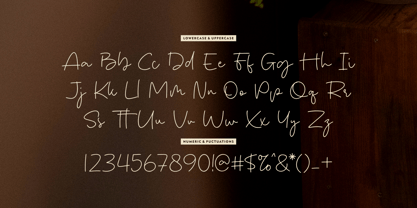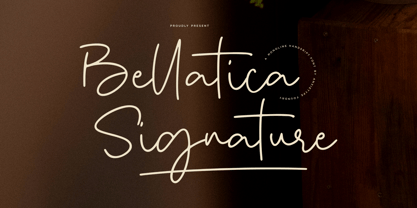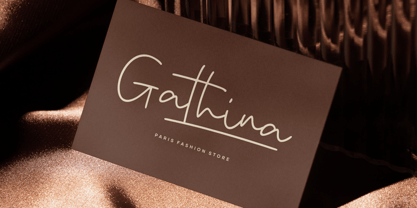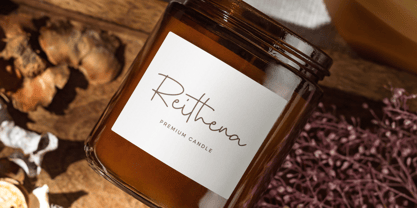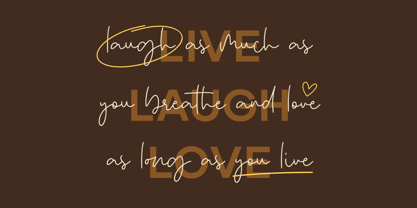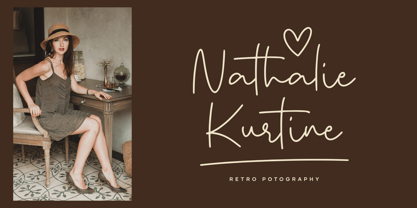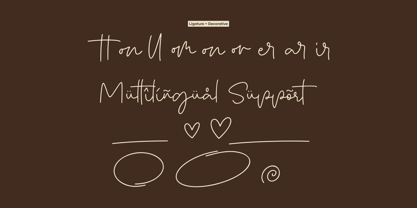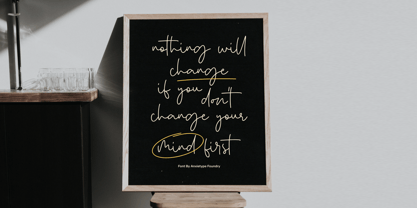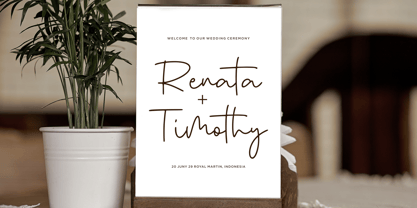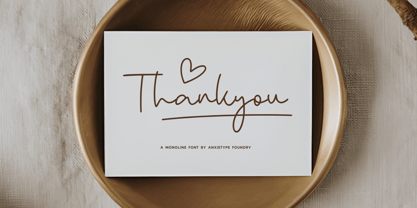
Bellatica Signature
by Anxietype Foundry
The Bellatica Signature Font Family was designed by Annas Rifky Anhar and published by Anxietype Foundry. Bellatica Signature contains 1 styles.
Crafted by Anxietype Foundry, Billatica Signature is more than just a monoline font—it’s a positive expression of persona. Cherished for its friendly demeanor, this distinct signature-style font offers the perfect blend of form and function for your unique applications. Whether you're elevating a brand's aesthetic, adding an elegant touch to wedding materials, embarking on captivating craft projects, or crafting inspiring quotes against colorful backdrops, Billatica Signature effortlessly adapts to meet your distinguished needs.